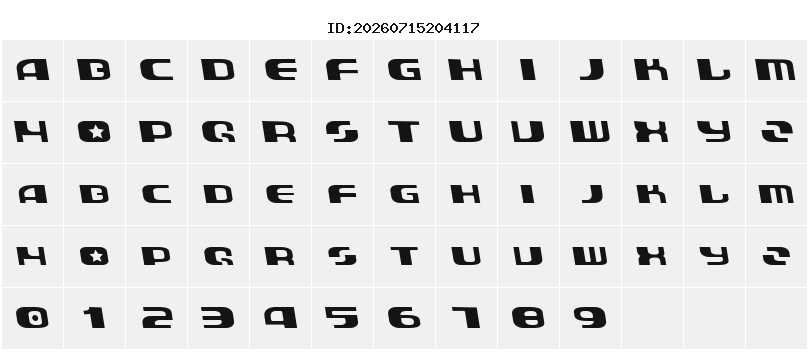
• Font Name: AuroraDevil
• Full Font Name: AuroraDevil Bold
About AuroraDevil.ttf
AuroraDevil.ttf is a modern, elegant sans-serif font designed for ultimate readability and visual harmony. Perfect for branding, headlines, web design, and print materials.